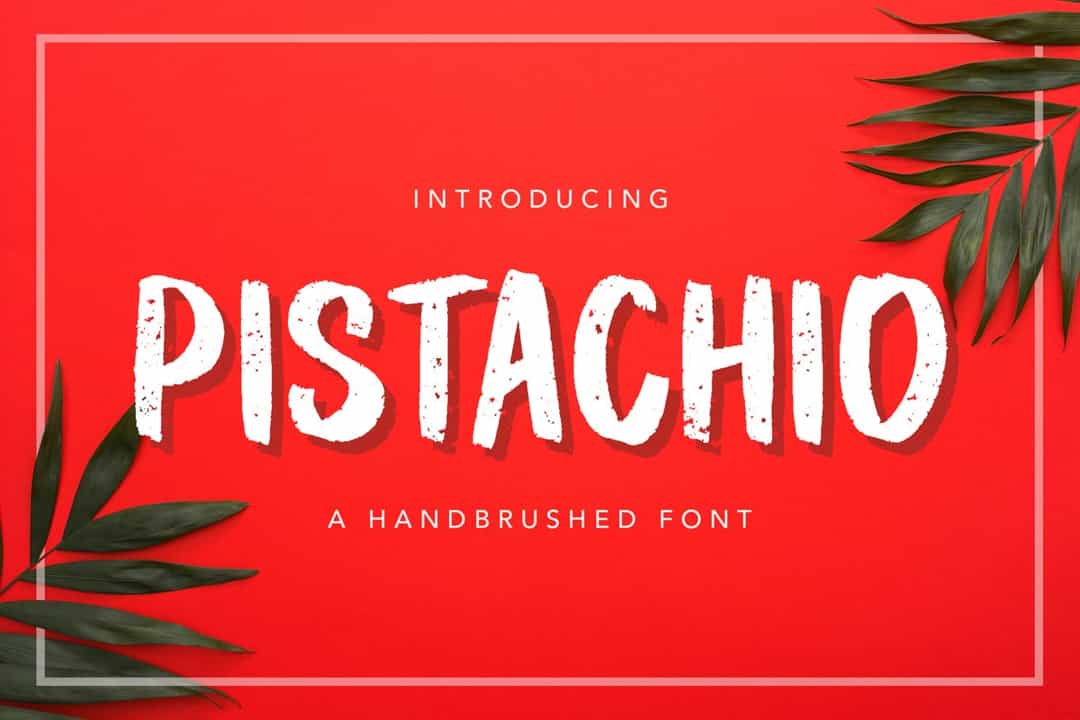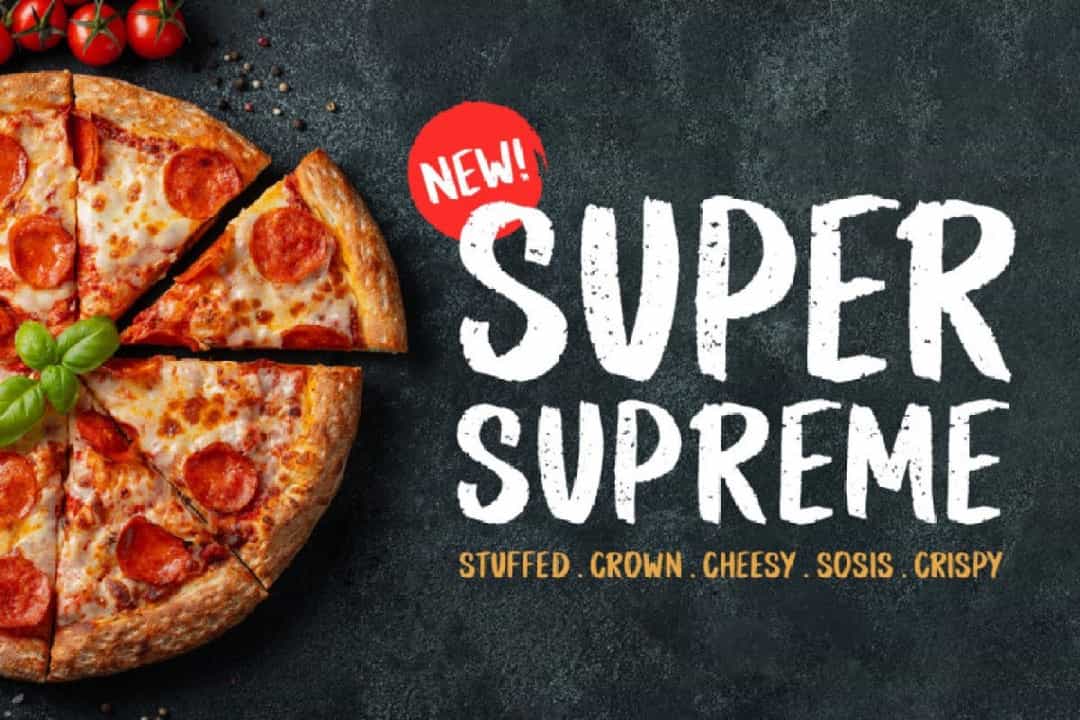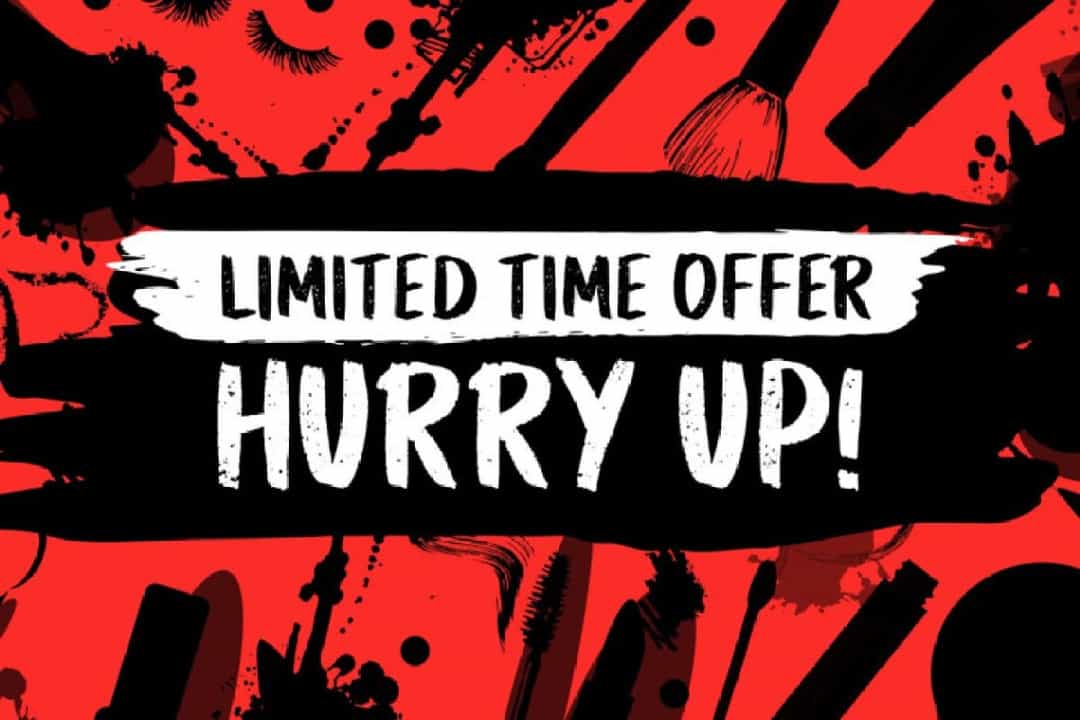
Pistachio is a hand brushed, fun and slightly bold script font that is perfect to complement modern fragrances, foods and faces. However, this font type can also be applied in packaging of products, tote bags, coffee fast food or as the attractive text layer for every image background; thus applicable for semi-formal and playful texts.